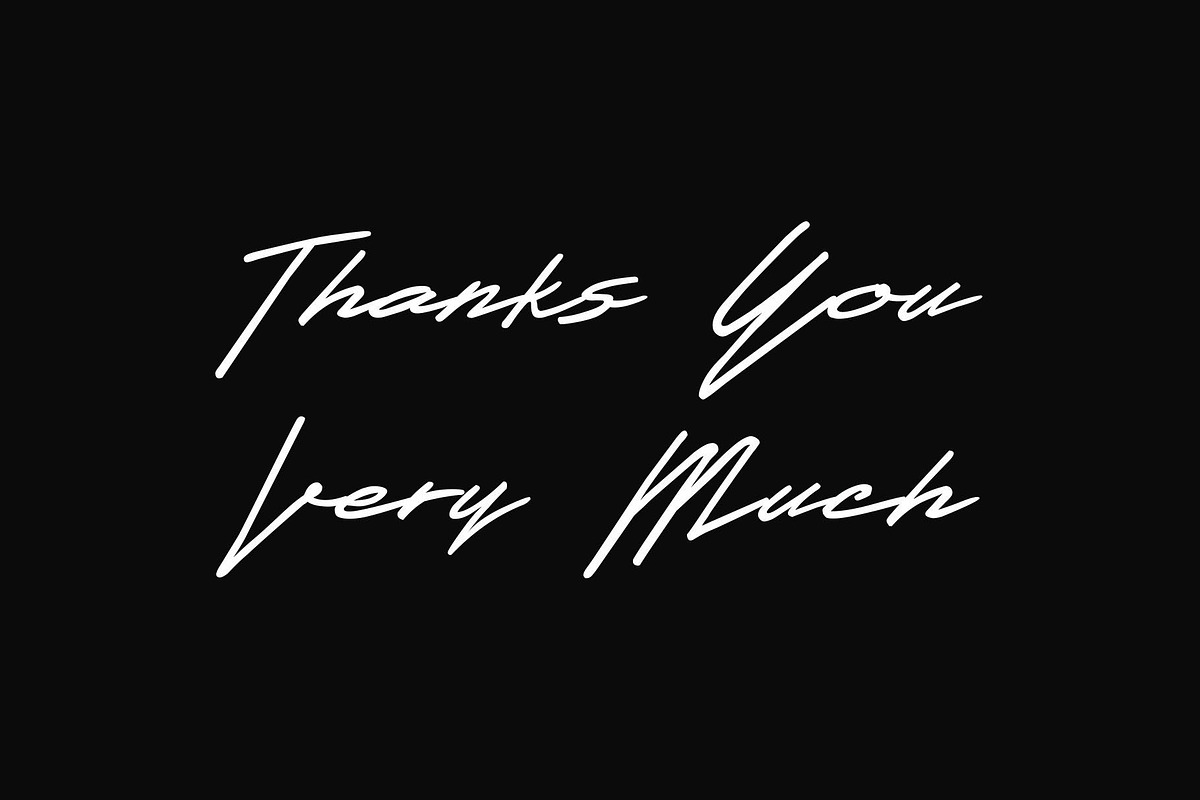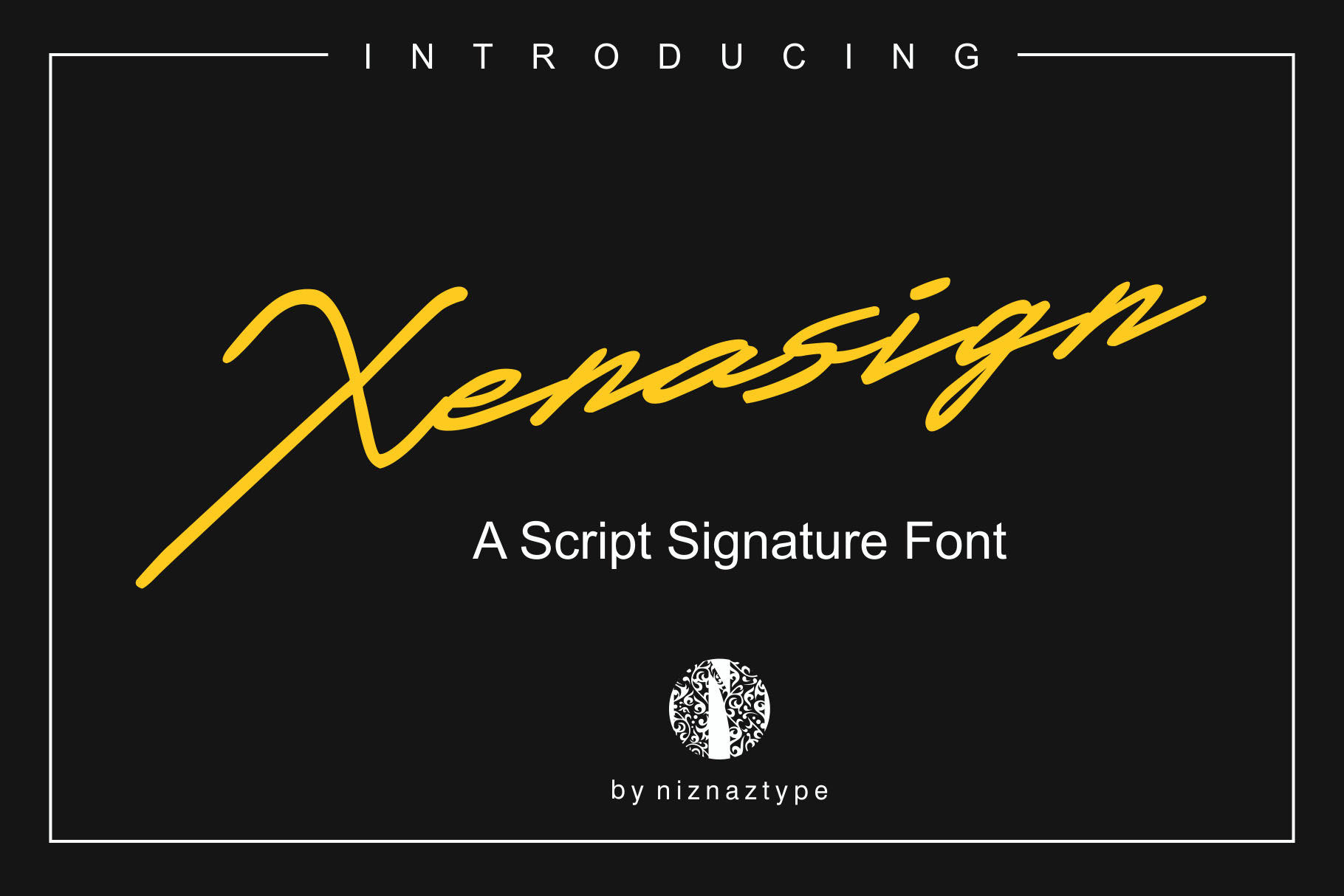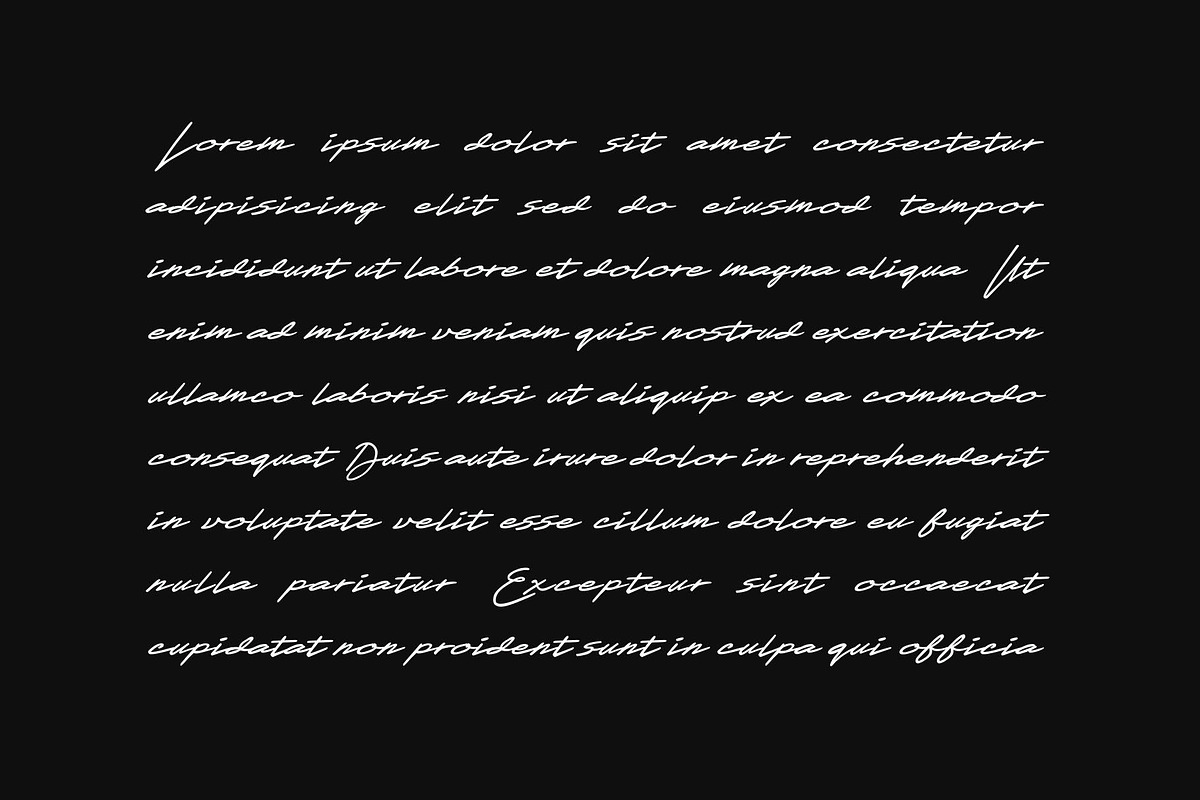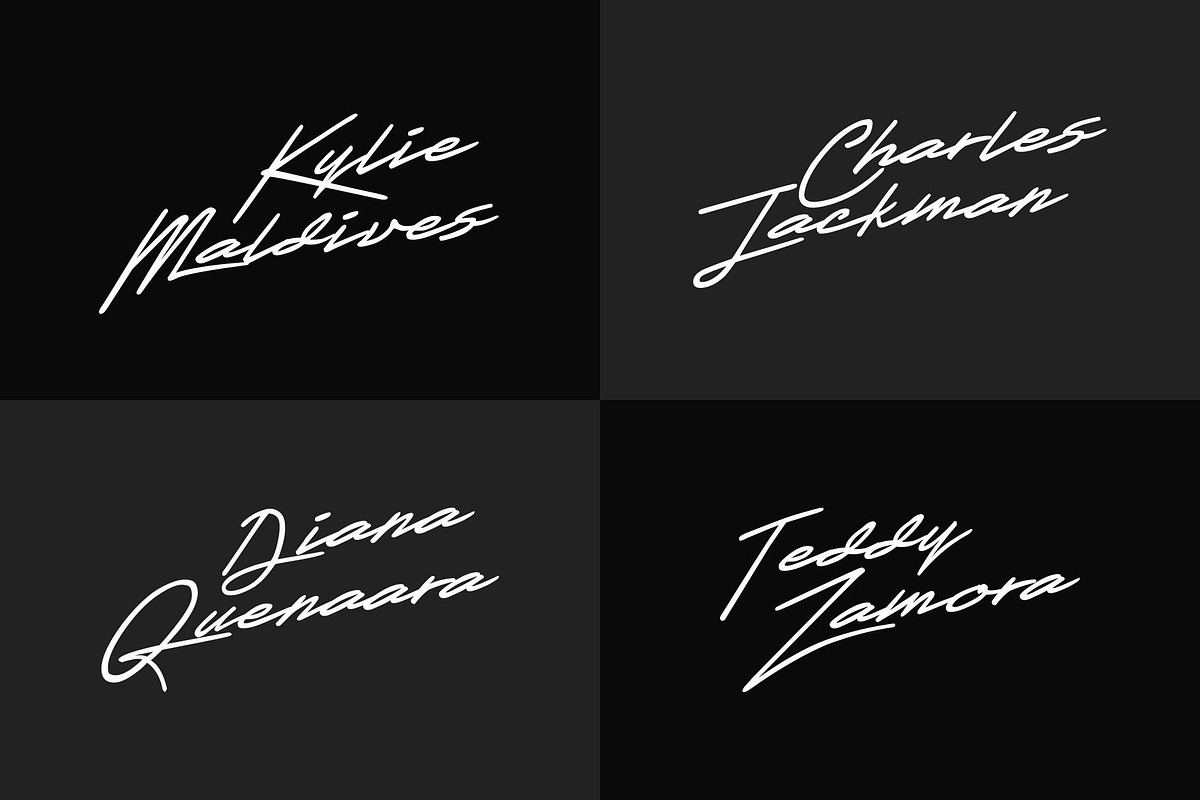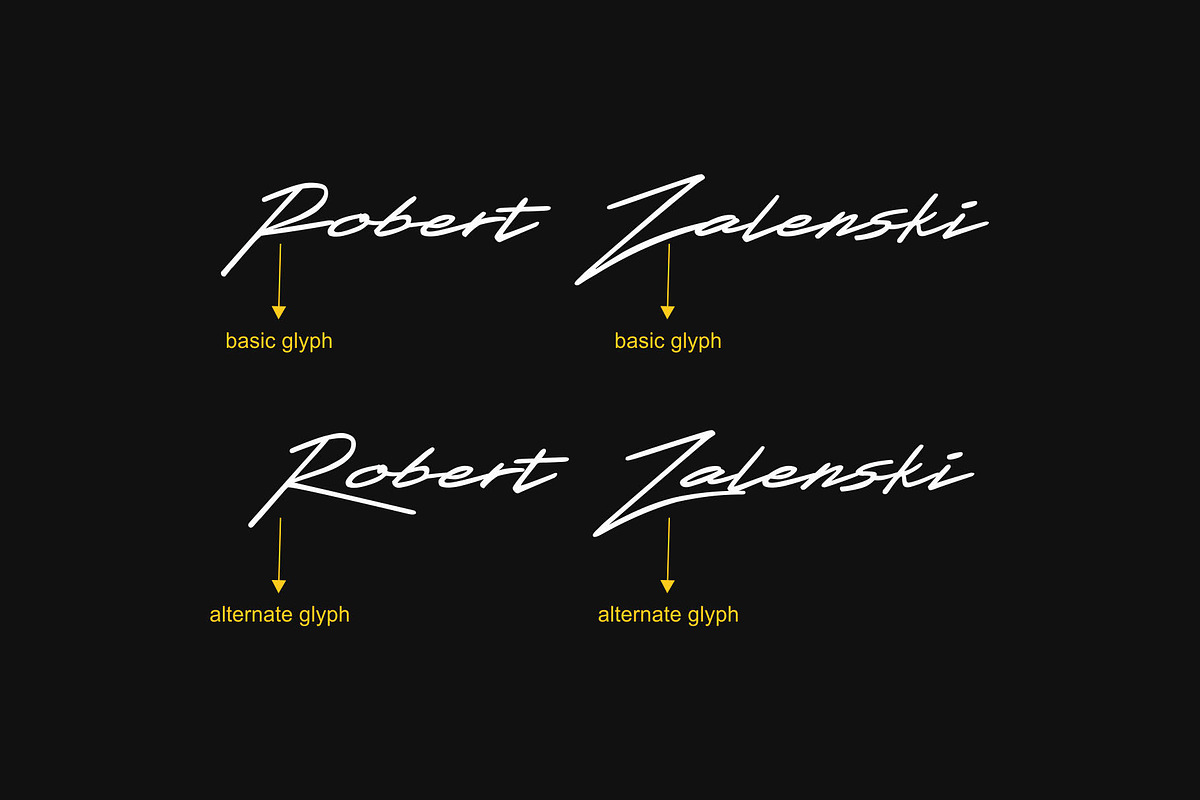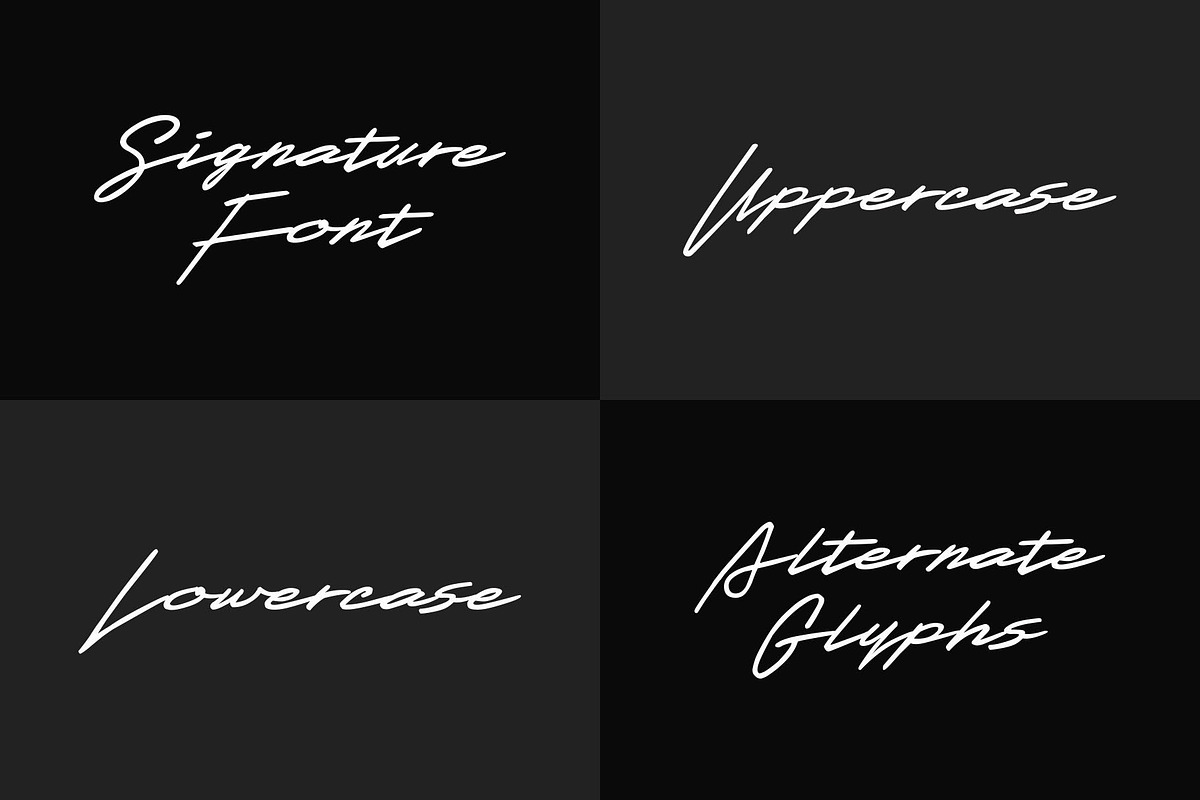
Xenasign Font
Introducing Xenasign font is a script signature typeface. Xenasign have a style a handwritten typing and signature typing.
This font contain : uppercase, lowercase and alternate glyphs.
Xenasign suitable for signature’s names, signature alphabet, invitation or wedding card, design with script typing and others.